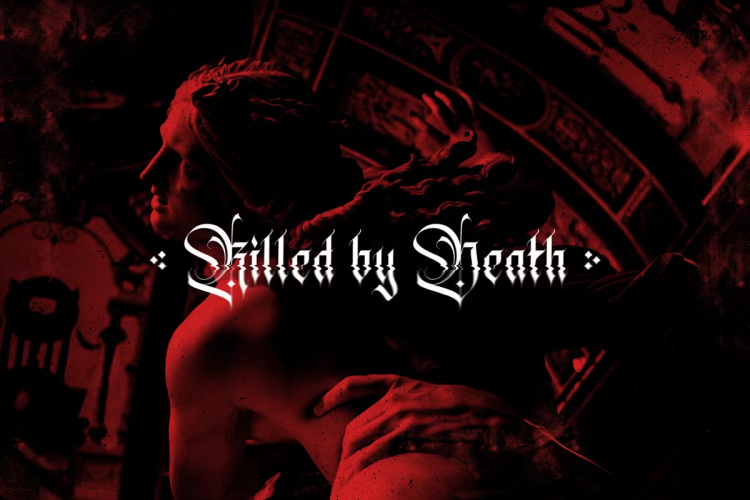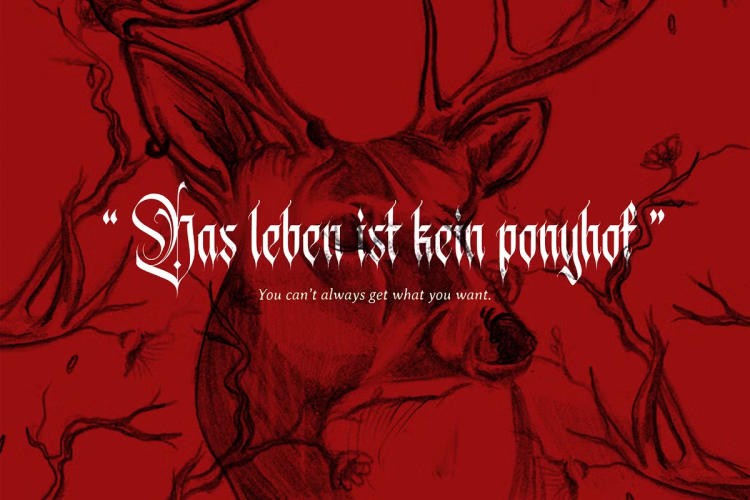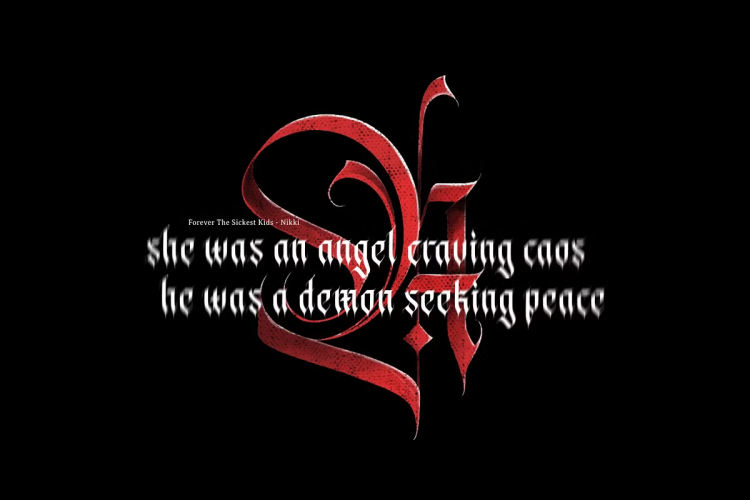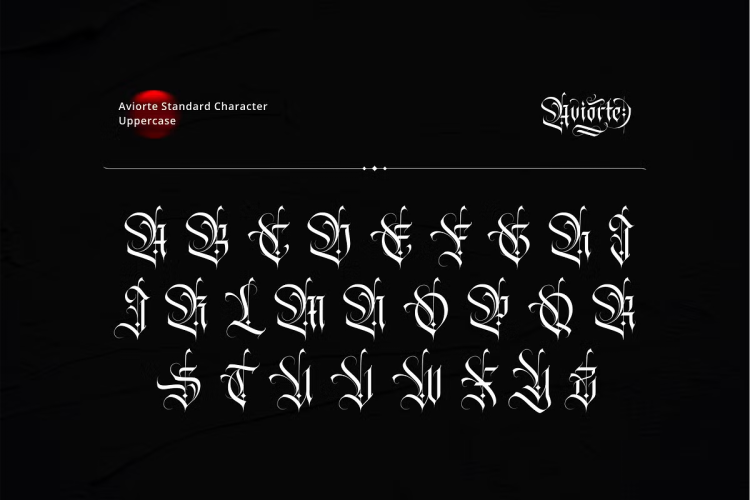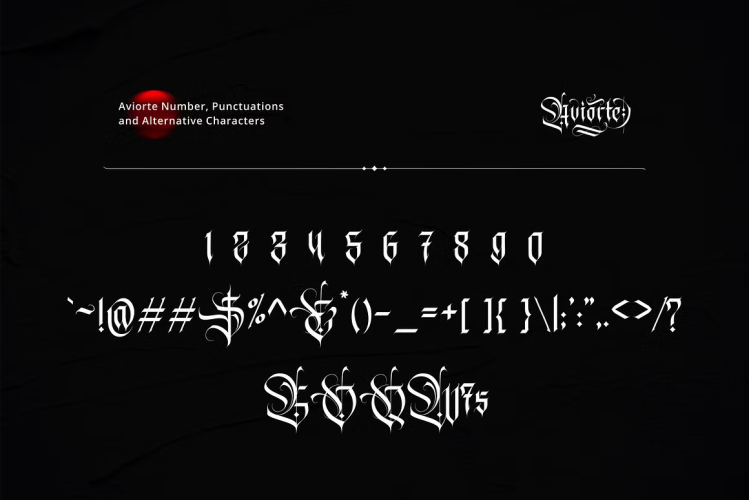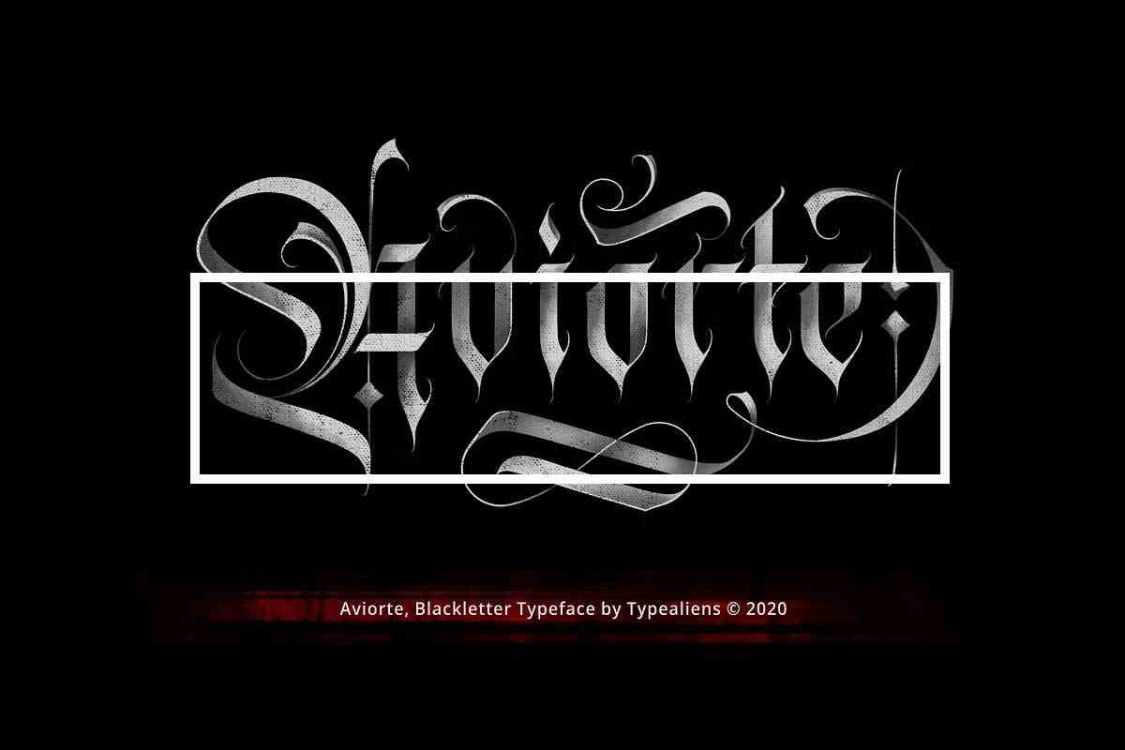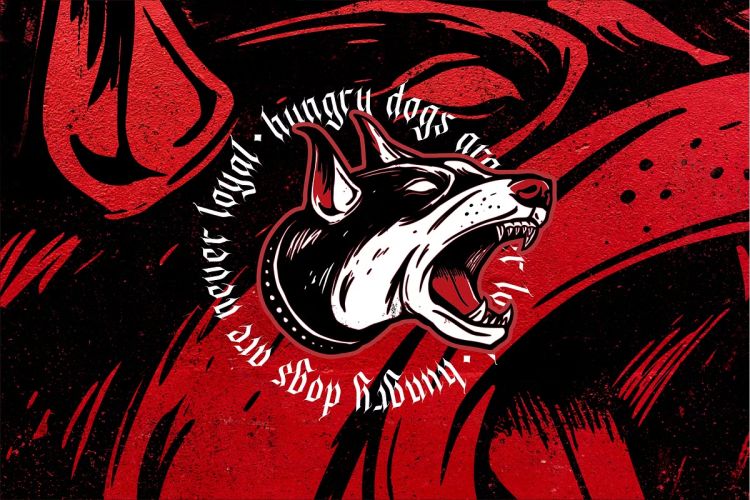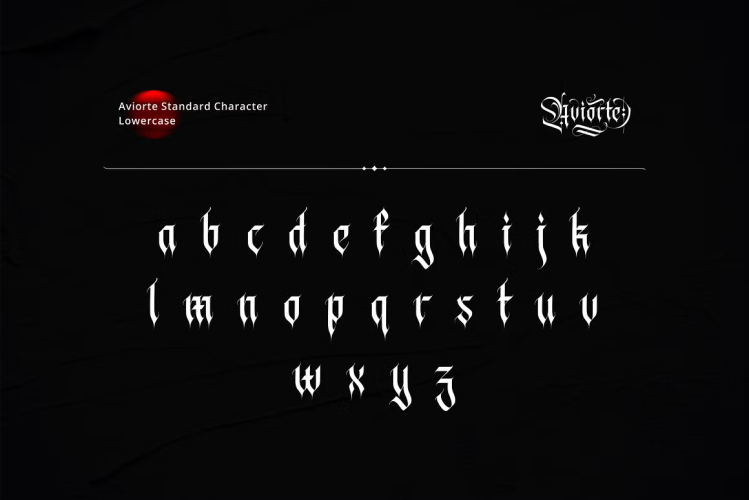
Aviorte Font
Aviorte is an elegant, clean, formal and beautiful blackletter font. The uppercase with an ornament element makes it very beautiful and decorative. It suits titles, headlines, logotype designs, badge designs, t-shirt design branding, etc.
Where Aviorte Font works best
Music & streetwear
Aviorte Font is a staple for metal and hip-hop artwork, tattoo lettering and streetwear graphics.
Beer, spirits & heritage labels
Blackletter signals tradition on brewery, whisky and old-town branding.
Certificates & diplomas
Classic gothic letterforms suit formal documents and mastheads.
What is Aviorte Font good for?
Aviorte Font is a Blackletter Font typeface tagged Blackletter, Blackletter Font, Branding, Clean. It works well for headlines, logos, posters, social media graphics and branding projects that need a distinctive blackletter font look.